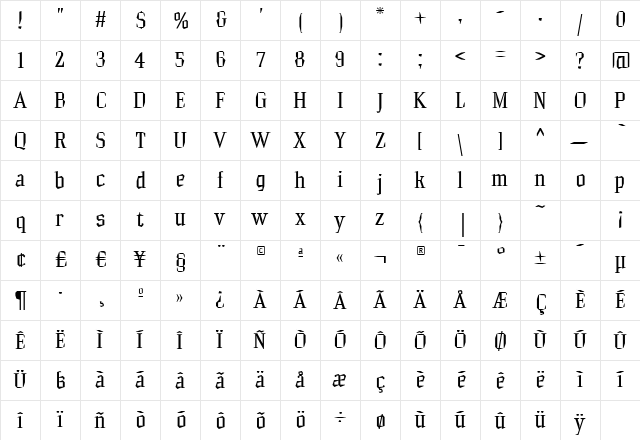
HammerheadRegular Regular
Design Context for HammerheadRegular
HammerheadRegular is a composed and adaptable typeface that performs quietly and consistently across a wide range of design contexts.
Pro Tip: Use HammerheadRegular in both headline and body roles to test its range before committing to a single application.